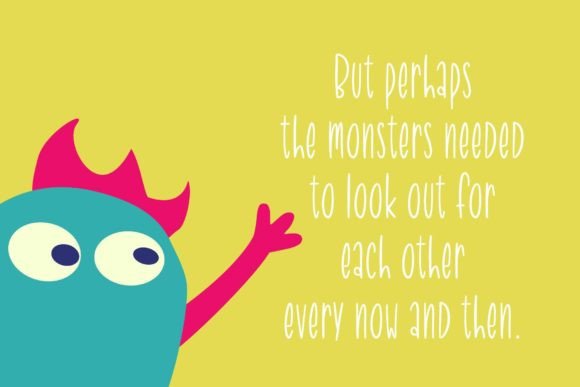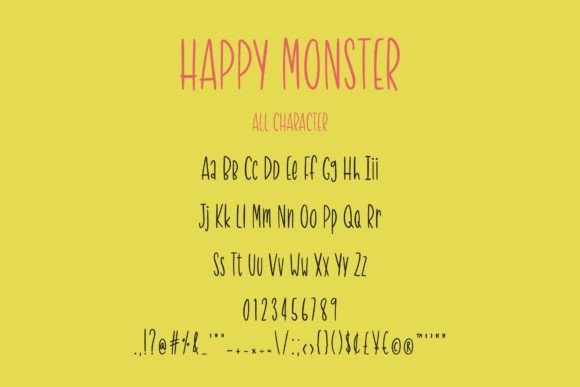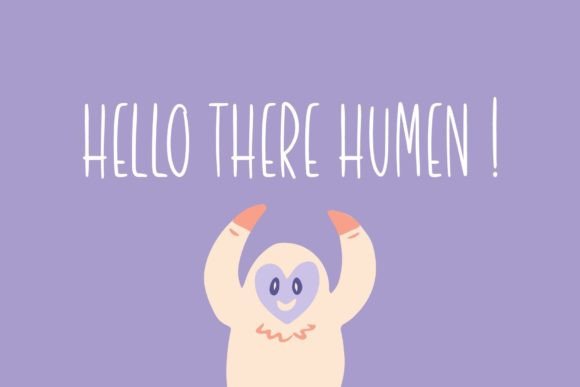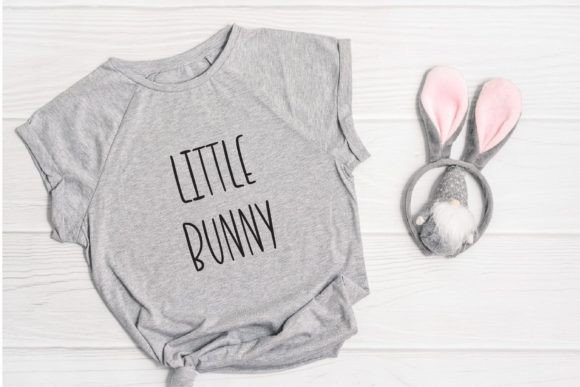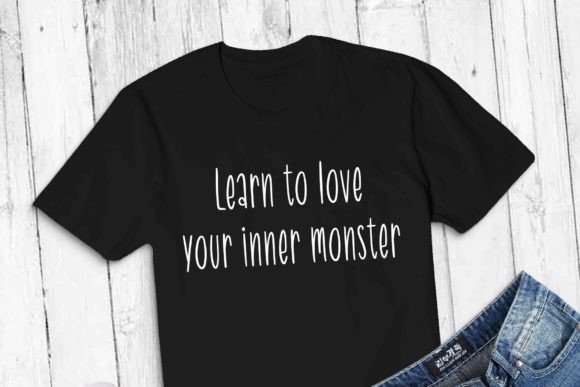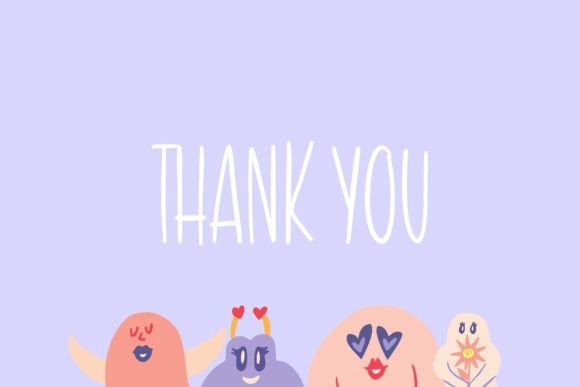
Introducing Happy Monster Font: The Perfect Addition to Your Design Collection
Are you tired of using the same old fonts in your designs? Look no further! Happy Monster Font is a friendly handwritten font that’s sure to bring a touch of playfulness and quirkiness to your creations. In this article, we’ll dive into the features and benefits of Happy Monster Font, and explore how it can elevate your social media posts, posters, cards, and greeting cards.
What is Happy Monster Font?
Happy Monster Font is a unique and charming handwritten font that’s designed to add a personal touch to your designs. Its playful and quirky style makes it perfect for a wide range of projects, from social media graphics to print materials. Whether you’re a designer, crafter, or simply someone who loves to create, Happy Monster Font is a great addition to your font collection.
Key Features of Happy Monster Font
- Playful and Quirky: Happy Monster Font has a fun and lively personality that’s sure to capture the attention of your audience.
- Handwritten Style: The font’s handwritten style gives it a personal and authentic feel that’s perfect for creating unique and engaging designs.
- Versatile: Happy Monster Font can be used for a wide range of projects, from social media posts to print materials, making it a great addition to your design toolkit.
- Easy to Read: Despite its playful style, Happy Monster Font is easy to read, making it perfect for use in body text and headings.
Uses for Happy Monster Font
Happy Monster Font is a versatile font that can be used for a wide range of projects. Here are some ideas to get you started:
- Social Media Posts: Add a touch of personality to your social media posts with Happy Monster Font. Use it to create eye-catching graphics, quotes, and promotions that will engage your audience.
- Posters: Create bold and eye-catching posters with Happy Monster Font. Its playful style makes it perfect for use in posters for events, promotions, and products.
- Cards and Greeting Cards: Happy Monster Font is a great choice for creating cute and personalized cards and greeting cards. Use it to add a touch of whimsy and personality to your designs.
- Crafting Projects: If you’re a crafter, Happy Monster Font is a great addition to your design toolkit. Use it to create unique and personalized designs for your crafting projects.
Benefits of Using Happy Monster Font
So why choose Happy Monster Font for your designs? Here are some benefits of using this unique and charming font:
- Adds Personality: Happy Monster Font adds a touch of personality and whimsy to your designs, making them stand out from the crowd.
- Increases Engagement: The playful style of Happy Monster Font can help increase engagement with your audience, making them more likely to interact with your designs.
- Versatile: Happy Monster Font can be used for a wide range of projects, making it a great addition to your design toolkit.
In conclusion, Happy Monster Font is a friendly handwritten font that’s perfect for adding a touch of playfulness and quirkiness to your designs. Its versatile style makes it suitable for a wide range of projects, from social media posts to print materials. Whether you’re a designer, crafter, or simply someone who loves to create, Happy Monster Font is a great addition to your font collection. So why not give it a try and see how it can elevate your designs?